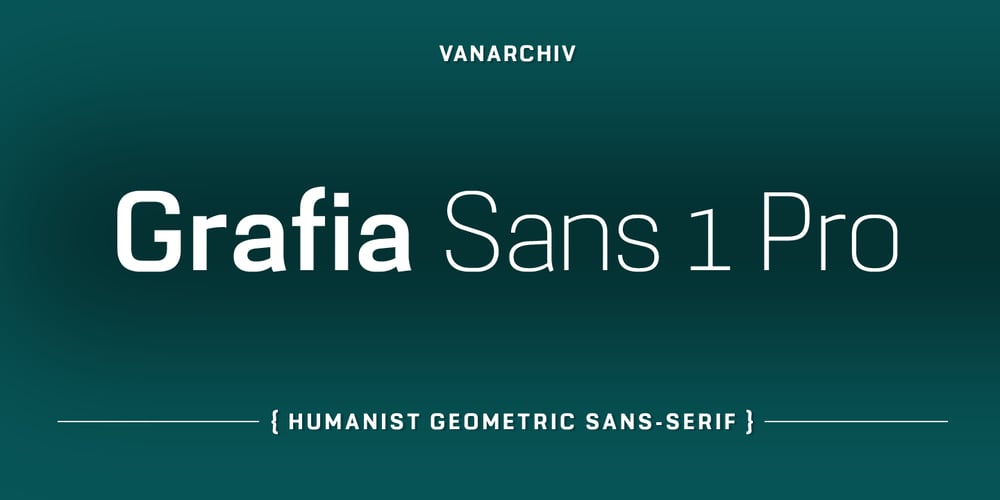
Grafia Sans 1 Pro Font Family was designed by Ricardo Santos and published by Vanarchiv. Grafia Sans 1 Pro contains 18 styles and family package options. Grafia Sans 1 Pro is a display geometric humanist sans-serif with close terminals, which was originally designed as an custom brand typeface for the YOYO studio (Barcelona) 2005. After all these years this typeface family it was redesign and completed to be published. This typeface has display proportions and have few typographic contrast. There are other typefaces which influenced this model besides Helvetica, like DIN, Eurostyle and Univers.